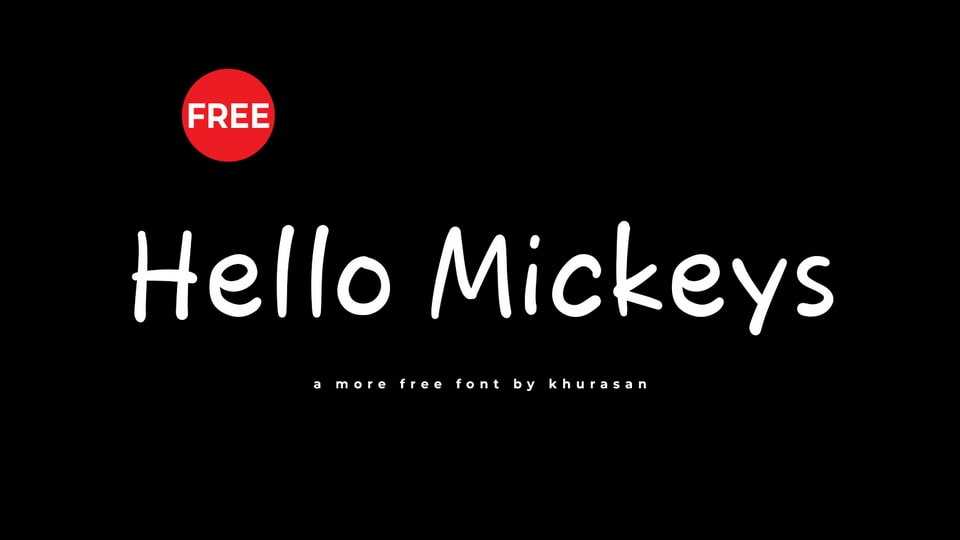
Download Hello Mickeys font, a simple and natural hand-drawn comic typeface that effortlessly brings a touch of authenticity to your designs. Hello Mickeys font is crafted with a relaxed and organic feel, capturing the spontaneity of hand-drawn doodles